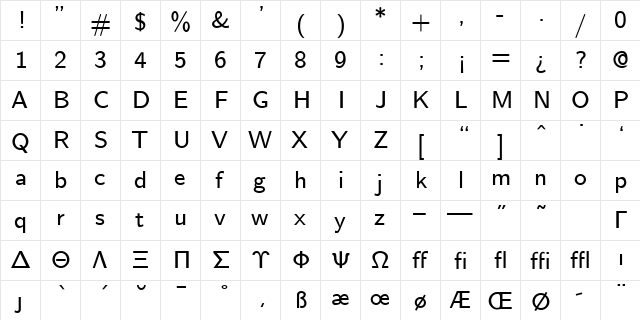
cmss8 Regular
Design Context for cmss8 Typeface
cmss8 is a composed and adaptable typeface that performs quietly and consistently across a wide range of design contexts.